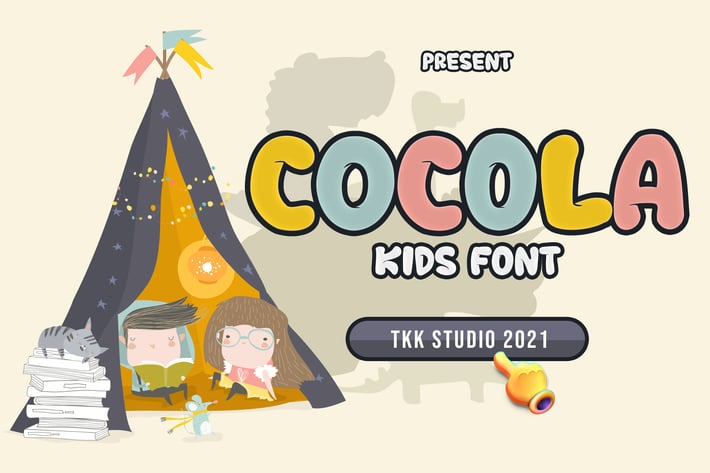
COCOLA - kids font
Cocola - All Caps Kids Font
COCOLA is a soft, cheerful kids display typeface with low contrast, rounded forms, and a warm bouncy baseline. It brings out a bubbly, handcrafted personality—ideal for youth-focused design. Each letter has a gentle wobble and playful presence, giving your design instant approachability. COCOLA’s structure combines geometric friendliness with expressive curves, making it well-suited for baby brands, children’s games, snack packaging, and cartoon-style UI environments.
Whether you’re designing an educational app, wrapping a chocolate treat, or branding a kids’ YouTube channel, COCOLA helps your message land with light-hearted energy. It feels safe, happy, and visually expressive—instantly connecting with toddlers, parents, and playful audiences. It’s ideal for packaging, baby clothing labels, editorial design for kids’ books, or in-game titles that demand attention with charm and legibility.
Key Features
Crafted for Playful Clarity:
- Rounded letterforms with soft edges for a gentle, welcoming look
- Bouncy baseline and expressive rhythm evoke childhood whimsy
- Balanced structure for easy readability at all sizes
Ideal for Fun-First Creative Markets:
- Kids product branding, early learning posters, and packaging design
- Game UIs, birthday cards, nursery labels, and children's books
- Works great in both physical and digital design applications